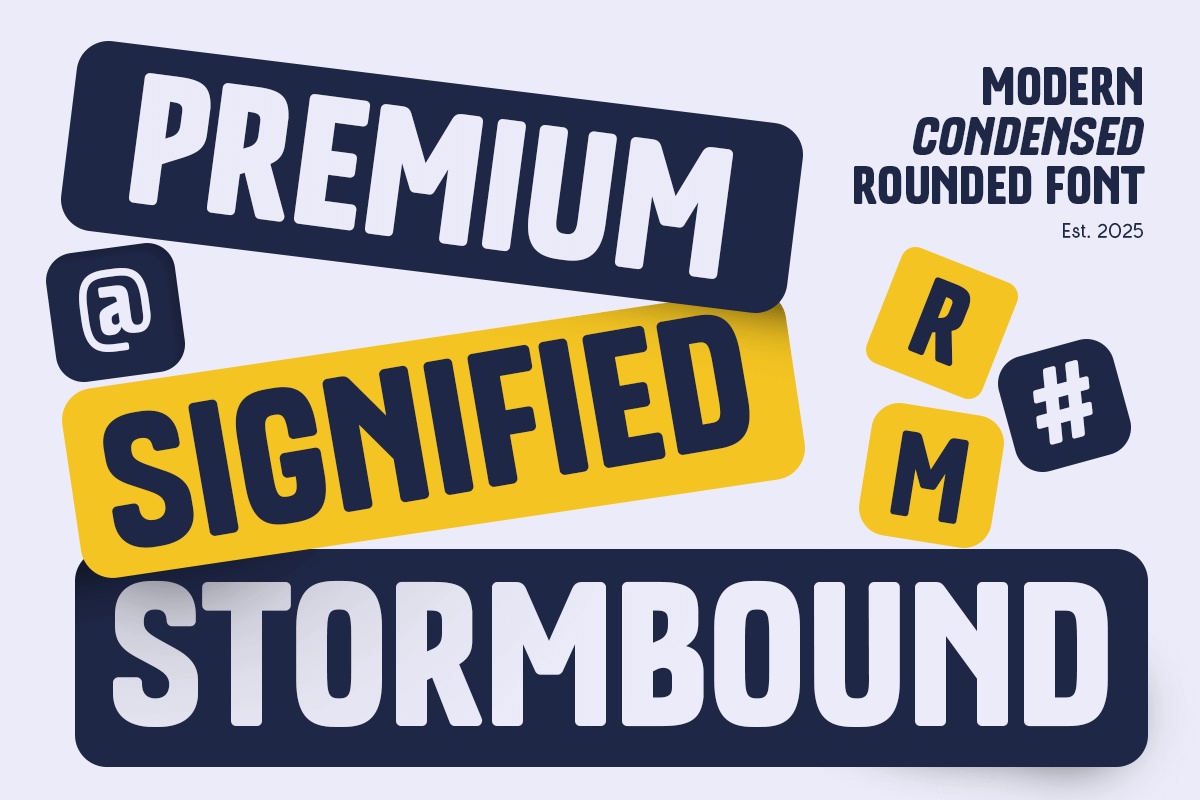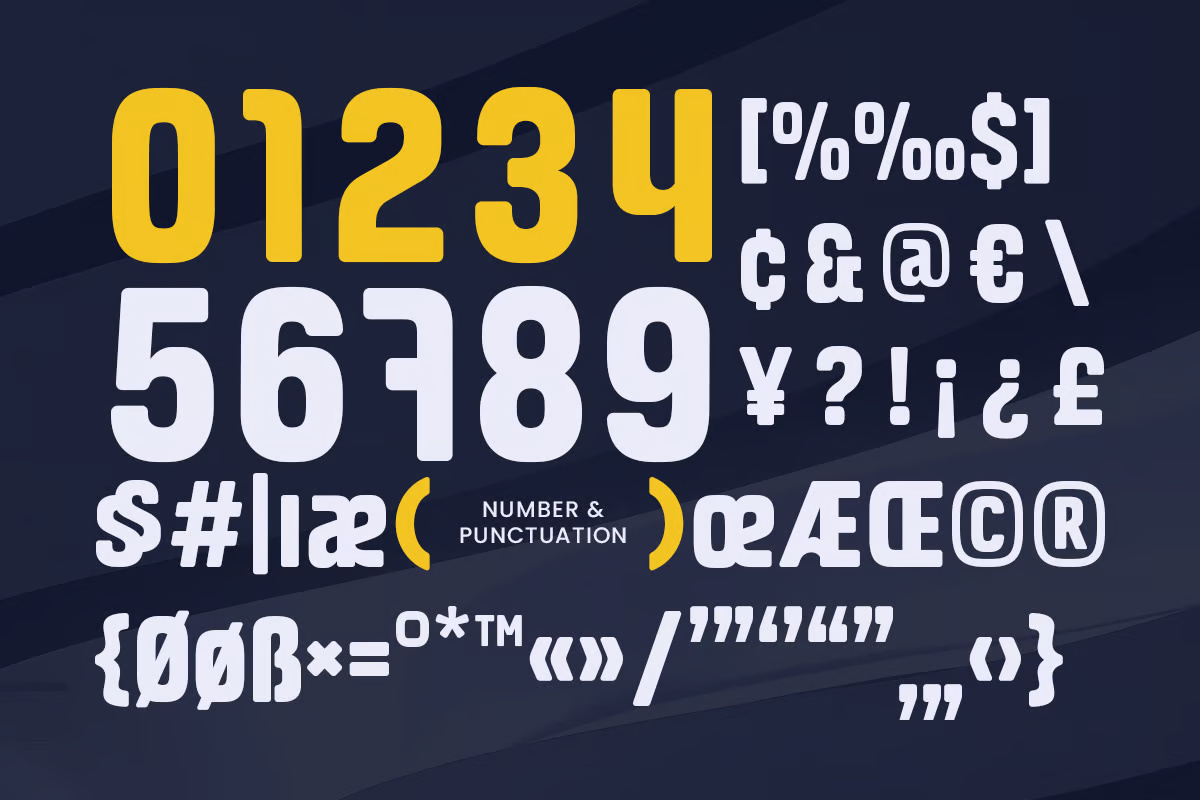
Condensed Neue Soft is a modern condensed font with smooth curves and a bold, minimalist design. Its soft edges and refined letterforms create a perfect balance between boldness and readability, making it ideal for branding, editorial layouts, product packaging, tech startups, and modern advertising.
With its narrow proportions and rounded details, Condensed Neue Soft brings a friendly yet professional touch to your projects. Whether you’re designing a cutting-edge website, stylish magazine headlines, or corporate branding materials, this font delivers a polished and contemporary look.
Perfect for designers who seek a modern, clean, and space-saving typeface, Condensed Neue Soft ensures maximum impact with minimal effort.
Condensed Neue Soft – Modern Condensed Font